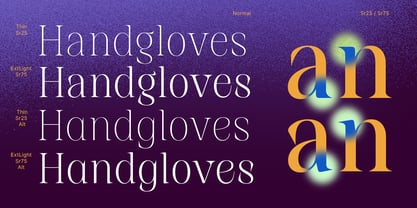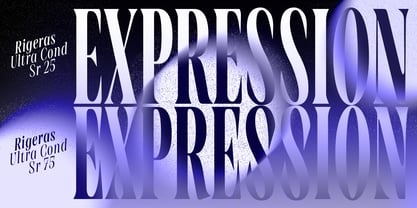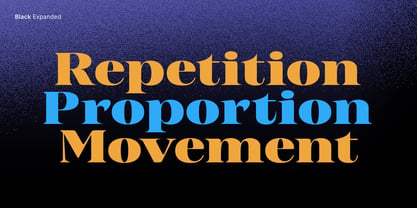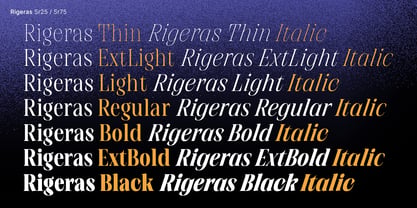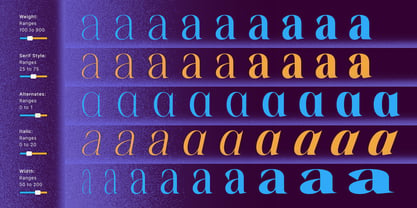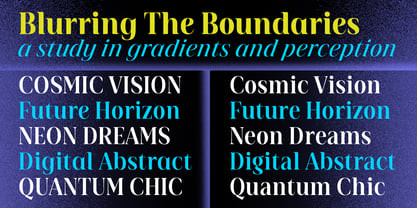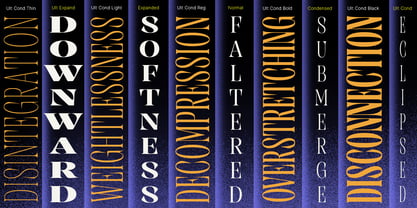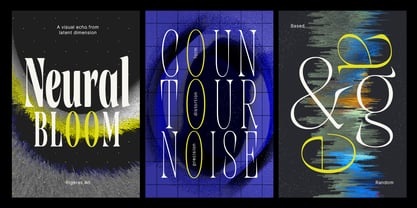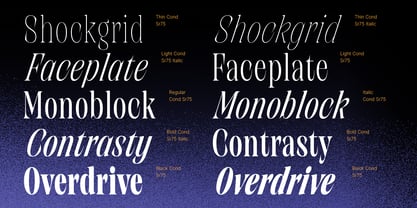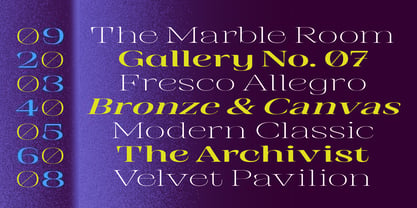
Rigeras
by Seniors Studio
The Rigeras Font Family was designed by Seniors Studio and published by Seniors Studio. Rigeras contains 211 styles and family package options. More about this family
Rigeras is a modern serif display typeface featuring 210 static fonts and 1 powerful variable font with 5 flexible axes: Weight, Width, Serif Style, Alternates, and Italic. This collection opens up a broad spectrum of typographic options. Blending classical elegance, editorial sharpness, and contemporary design sensibilities, Rigeras offers a truly expressive typographic experience. The Width axes spans from Ultra Condensed to Ultra Expanded, giving designers full control over horizontal proportions and layout rhythm. This expansive typographic system makes Rigeras an ideal choice for projects that demand visual drama, stylistic control, and creative sophistication—from editorial layouts and fashion branding to book covers, poster design, and beyond. Its letterforms are sharp, high-contrast. making it perfectly suited for creating striking headlines and refined typographic compositions. Rigeras also includes full OpenType support, featuring Stylistic Alternates for seamless and intuitive style switching. It supports Latin Pro character sets with a total of 432 glyphs, ensuring broad language compatibility and typographic flexibility across a wide range of design applications. Whether you're crafting a bold editorial spread or a luxurious brand identity, Rigeras gives you the tools to bring depth, elegance, and personality to your typography.